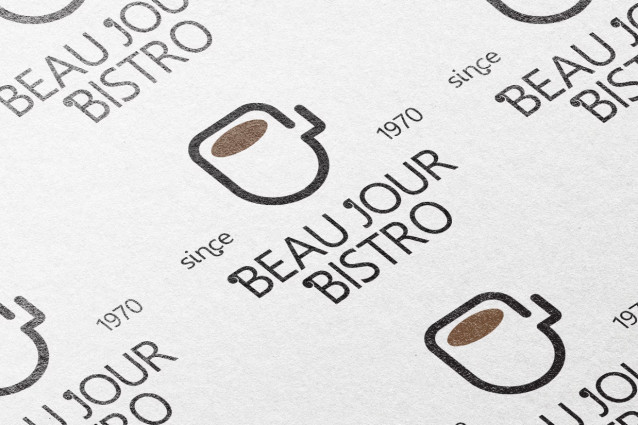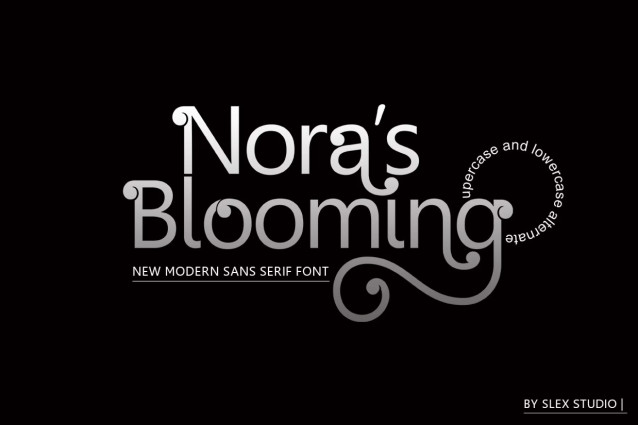
Nora’s Blooming Font
Nora’s Blooming Font is a chic + modern sans serif font. The Nora’s font is perfect for branding, logos, social media, prints, stickers, shirts, svg files and more!
Nora’s Blooming is unique in that it can be used for a variety of design styles.
Great for free-spirited boho designs as well as for a classier editorial look!
There are fun style alternatives available for use with this font.